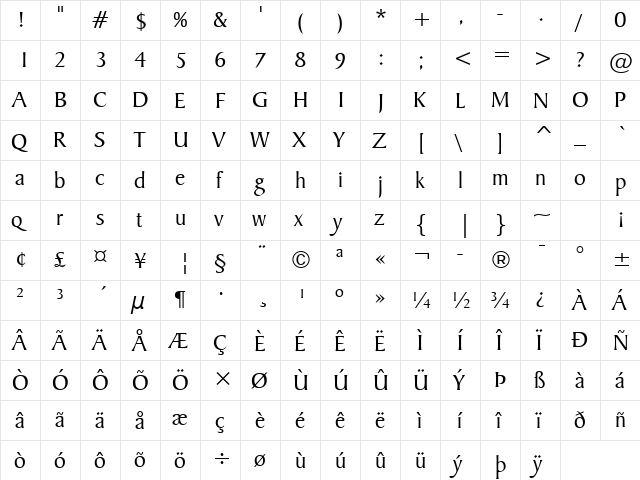
BakerSignet BT Roman Font Preview
BakerSignet BT Roman
BakerSignet BT Roman Font Details
Design Context for BakerSignet BT Typeface
BakerSignet BT takes a measured approach to typography — its balanced proportions and neutral character make it a reliable workhorse for both digital and print work.